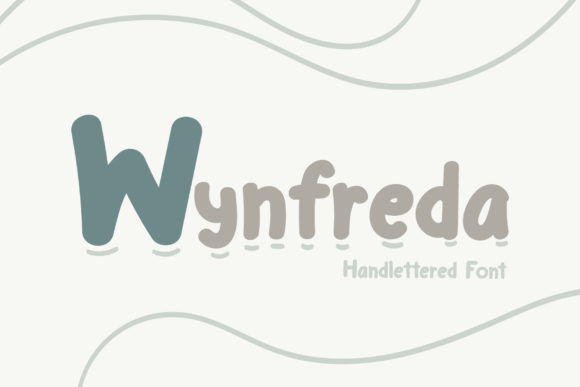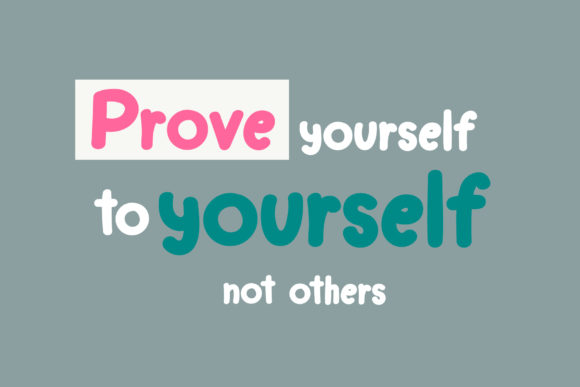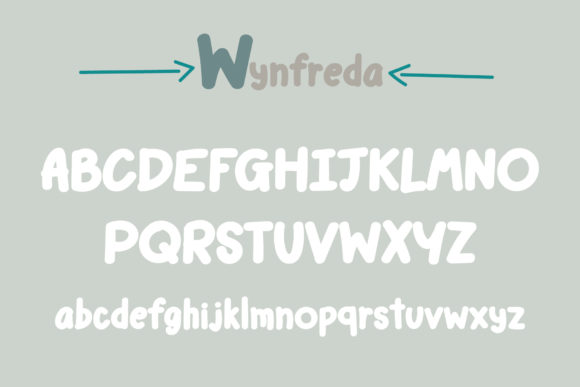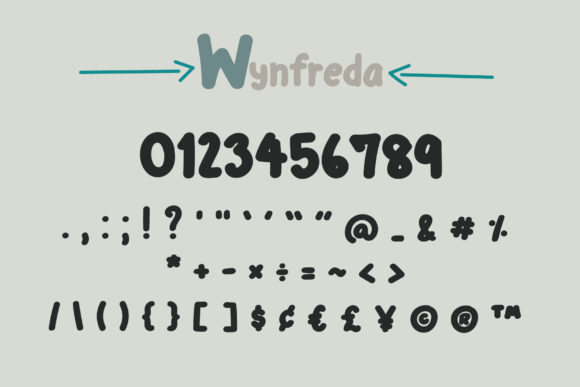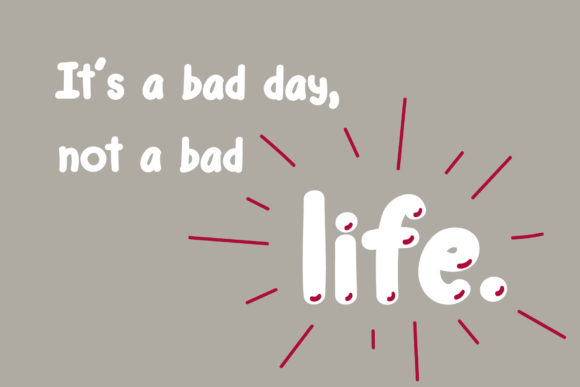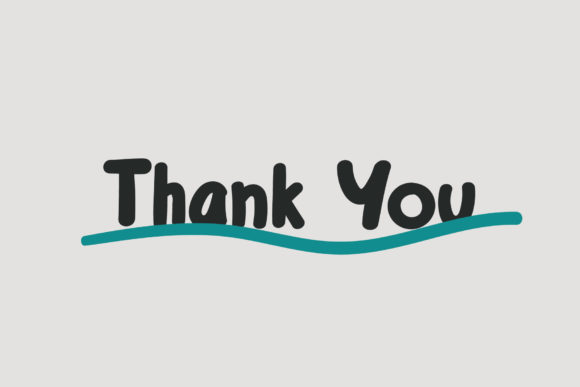
Wynfreda Font
About Wynfreda Font
Wynfreda is a cute and casual handwritten font with an incredibly friendly feel. Whether you’re looking for fonts for Instagram or calligraphy scripts for DIY projects, this font will turn any creative idea into a true piece of art!